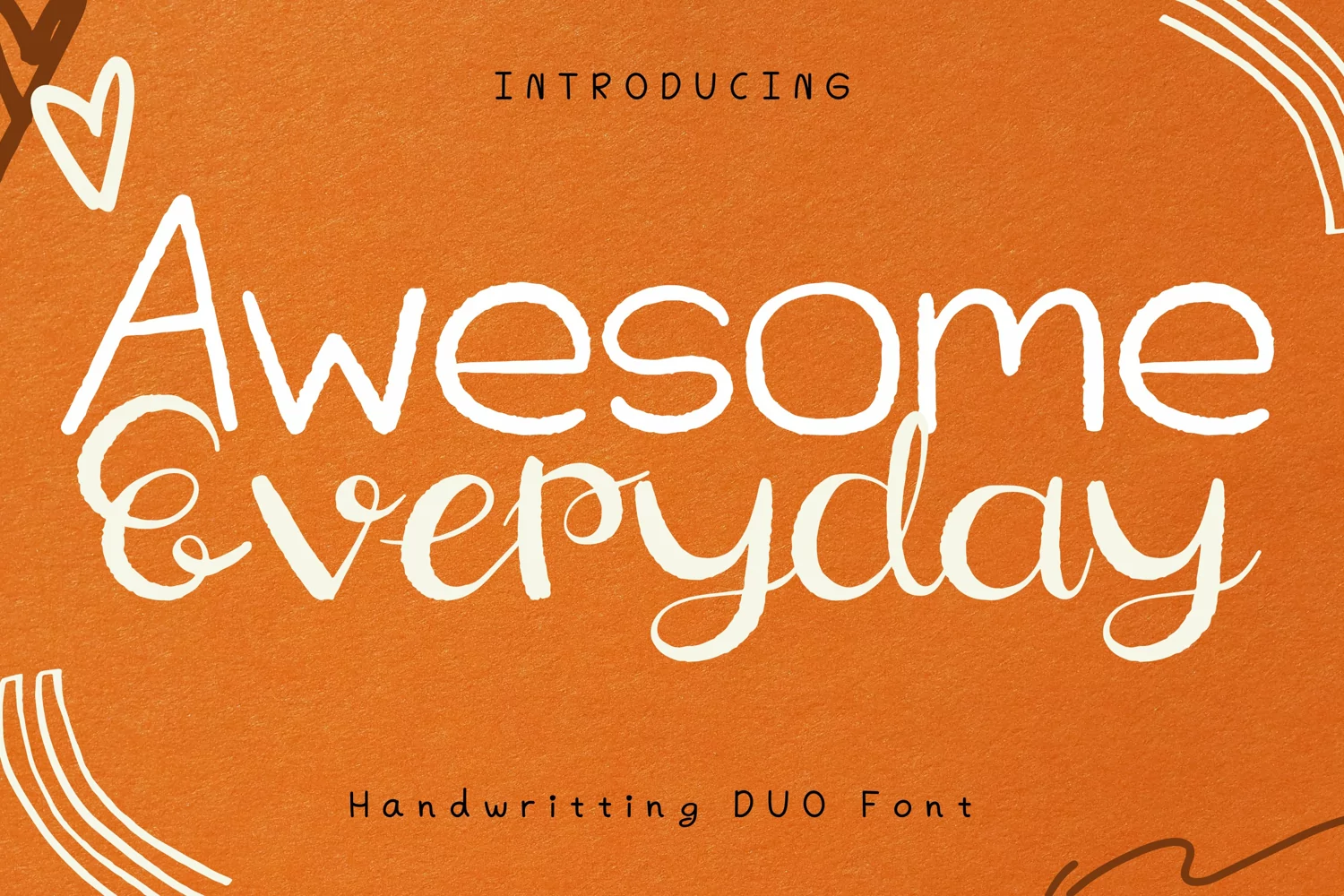
Awesome Everyday Style
Everyday
Awesome
Awesome Everyday Style is a whimsical and clean handwritten font. It can easily be matched to an incredibly large set of projects, so add it to your creative ideas and notice how it makes them stand out!